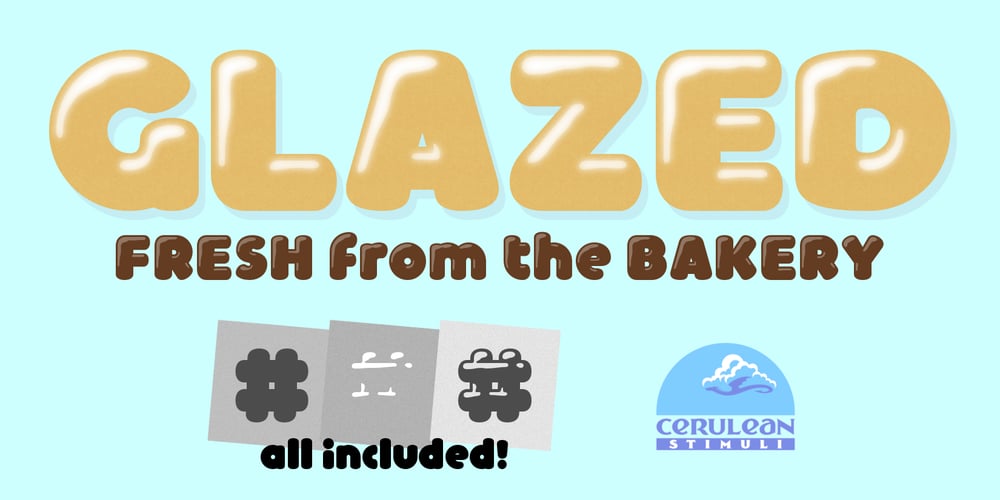
Glazed
Glazed font
Glazed Font Family was designed by K. Pease and published by Cerulean Stimuli. Glazed contains 4 styles and family package options. Take a big chewy bite of Glazed, the especially doughy doughnut font. With its blunt “maple bar” strokes, Glazed is bolder than many other rounded typefaces while still being clean and neat. Enjoy it plain, or add dimension with the carefully-drawn glistening highlights of the Shine layer. It’s versatile and tasty!